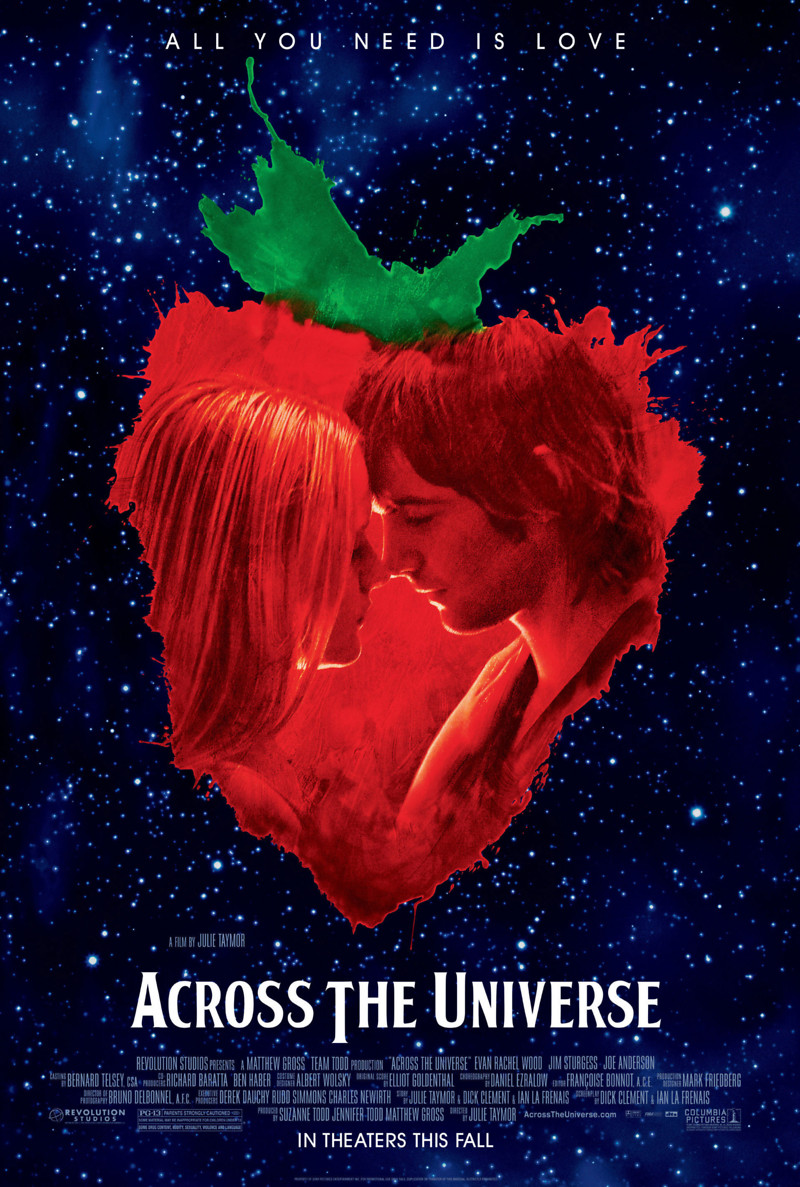
Across the Universe Font
DramaAcross the Universe is a musical film released in 2007, directed by Julie Taymor. It explores the life of a young man named Jude, who sets off on a journey to find his father and is exposed to the cultural and political upheaval of the 1960s.
The film poster showcases a font similar to Bootle, a free serif font created by Northern Fonts. It is based on the Beatles logo and can be utilized for both personal and commercial purposes.